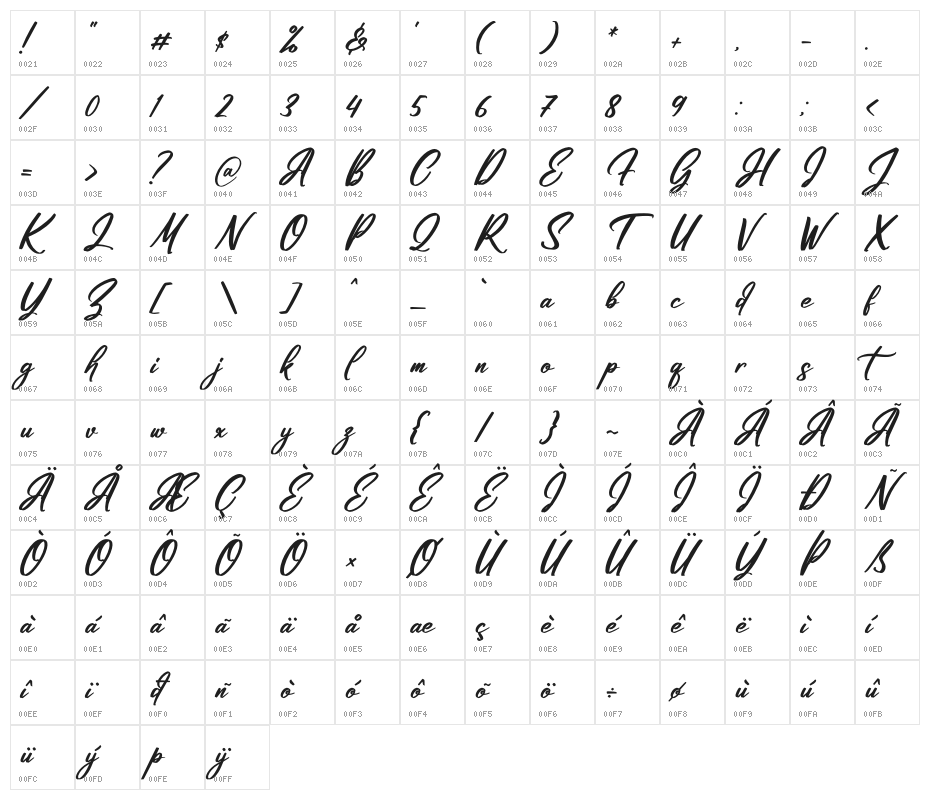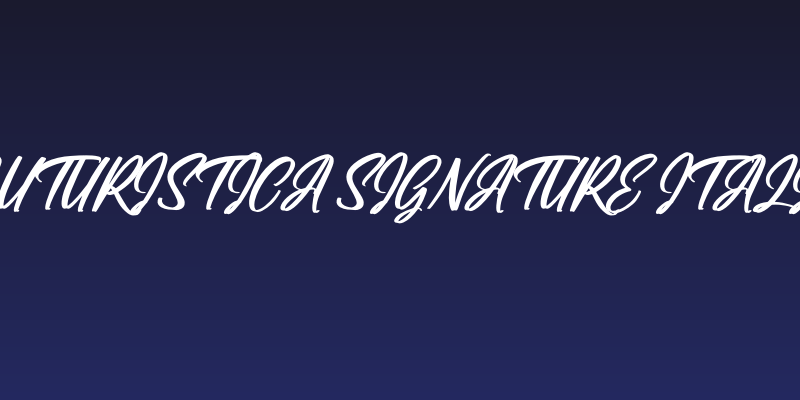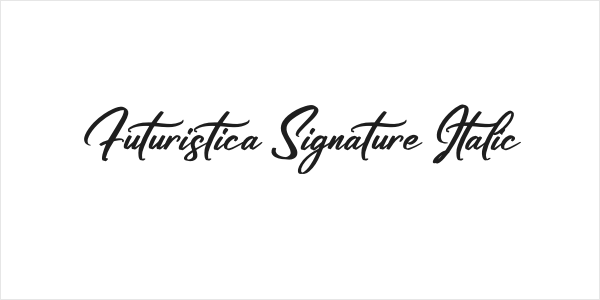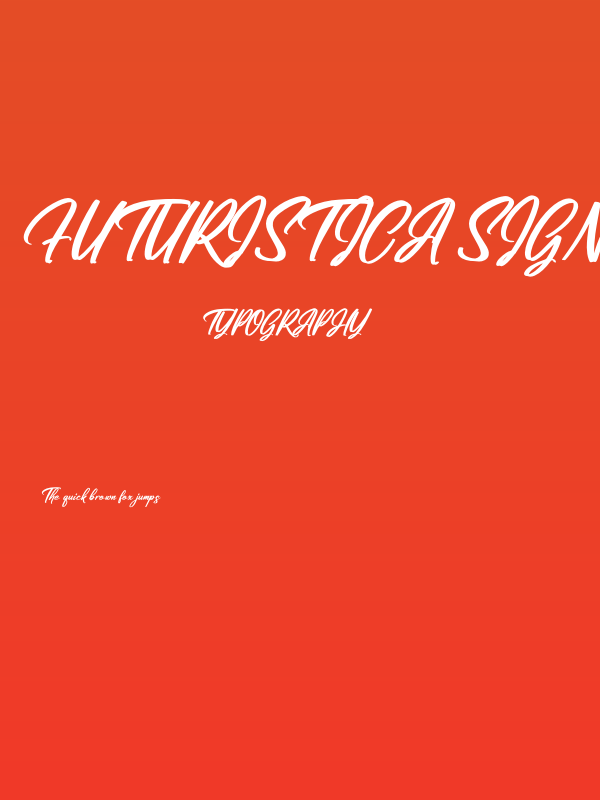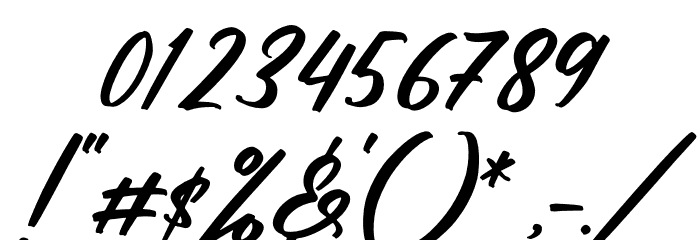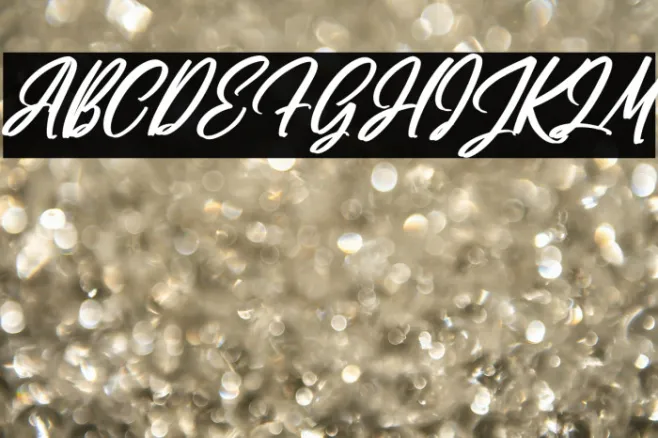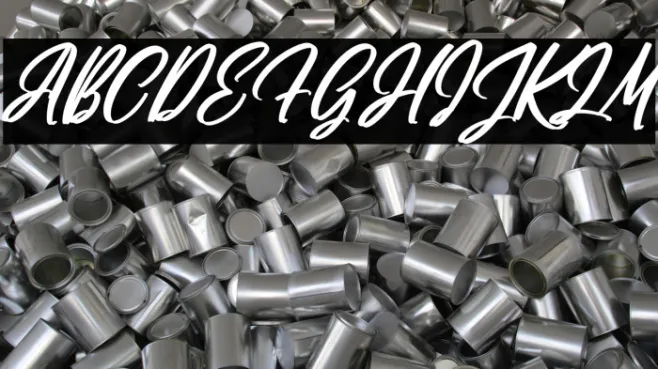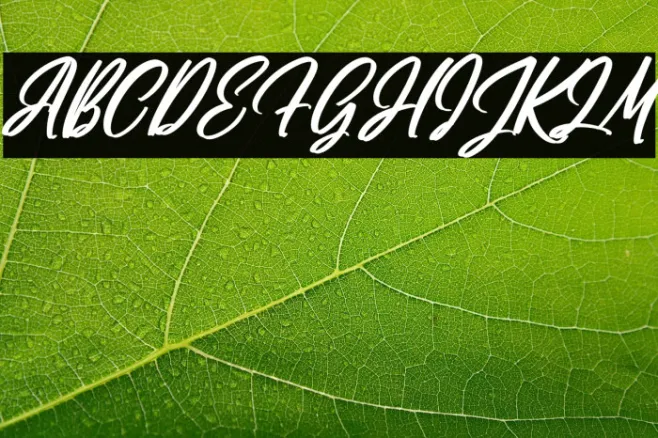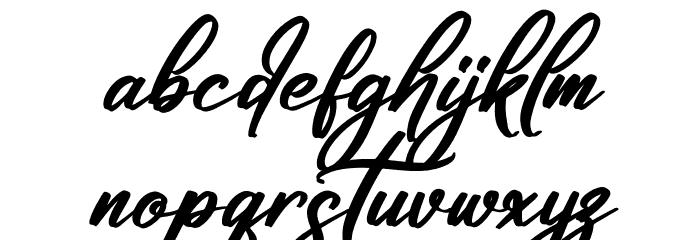
Futuristica Signature Italic Font
Futuristica Signature Italic Description
This font exudes a modern and elegant script style, characterized by its flowing, cursive letterforms that mimic the fluidity of handwriting. The uppercase letters are bold and dynamic, with sweeping curves and a sense of movement, while the lowercase letters maintain a consistent, graceful flow. The numerals and special characters are designed to complement the overall aesthetic, featuring similar curves and strokes. The italic nature of the font adds to its sophisticated and stylish appearance, making it ideal for projects that require a touch of elegance and personal flair.
| Proposed Projects | Ideal for wedding invitations, branding, logo design, and elegant stationery. |